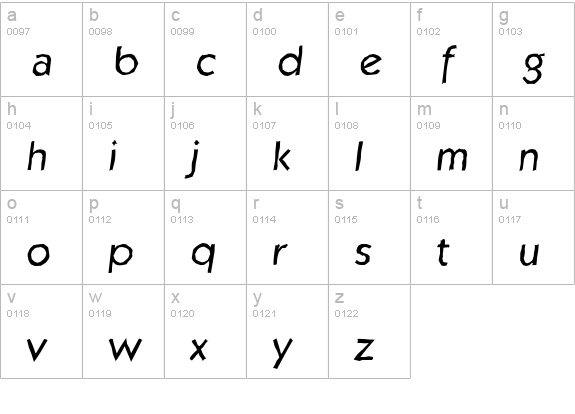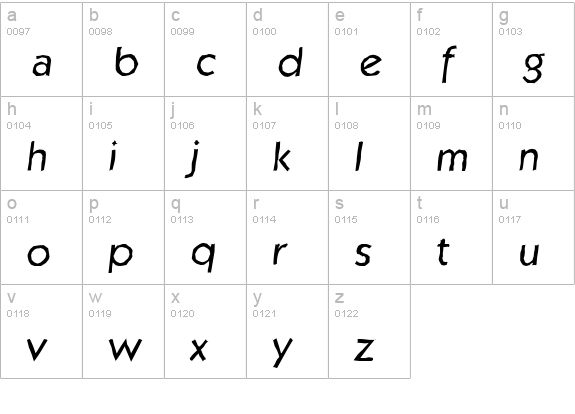
KoblenzAntique-Italic is a distinctive, italic variant in the KoblenzAntique typeface family \xE2\x80\x94 well suited to design and typography projects.
KoblenzAntique-Italic font exudes a timeless elegance with its classic and sophisticated design. The italic style adds a touch of flair and refinement to any project, making it ideal for formal invitations, branding, and editorial designs. The gracefully slanted letters of KoblenzAntique-Italic font convey a sense of tradition and grace, giving your text a touch of old-world charm. Best of all, KoblenzAntique-Italic font is available for free download at FontsMarket.com. This means you can easily access this beautiful typeface and incorporate it into your creative endeavors without breaking the bank. Don't miss out on the opportunity to enhance your designs with the timeless beauty of KoblenzAntique-Italic font. Download it today and let your creativity shine!